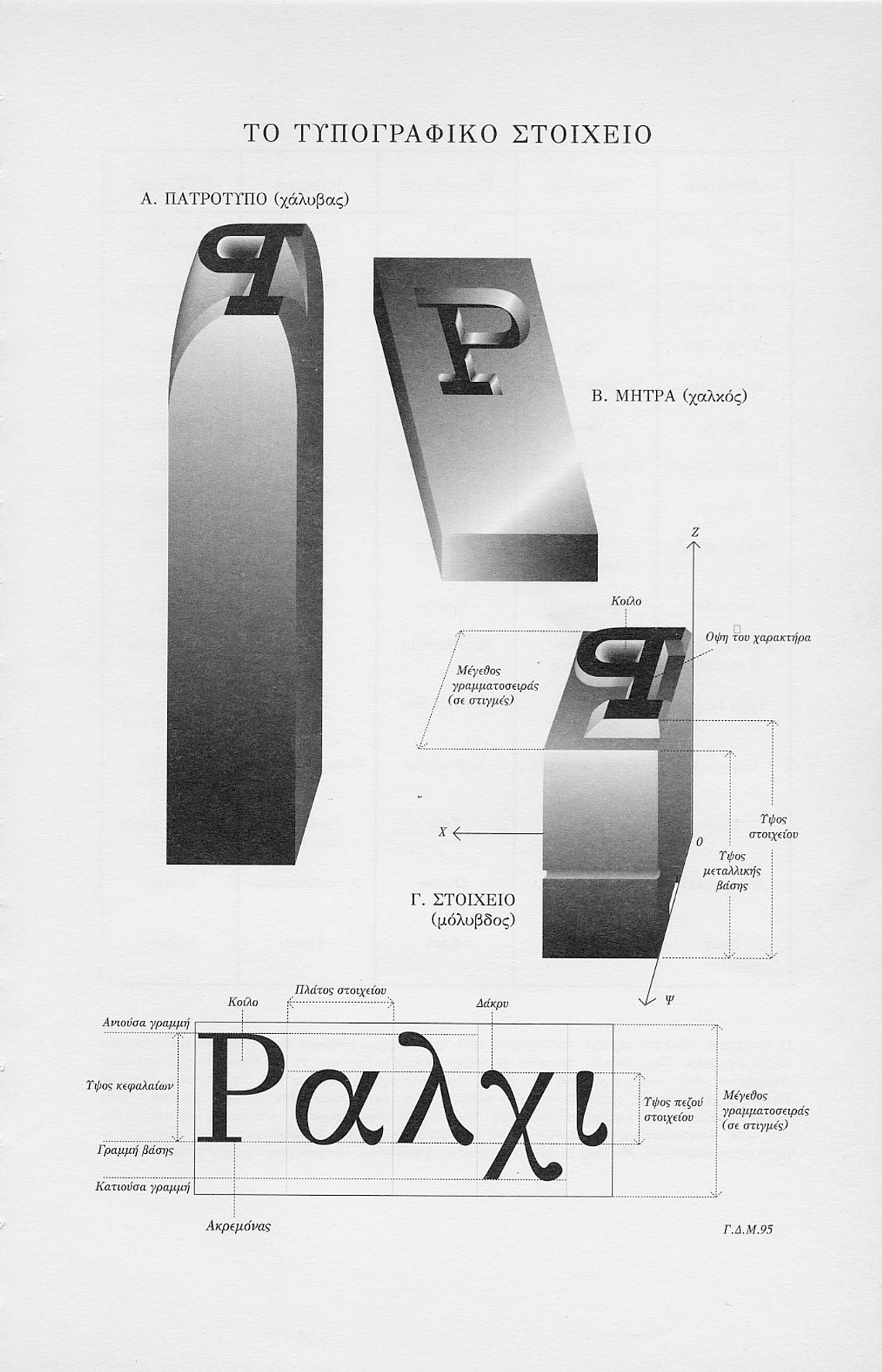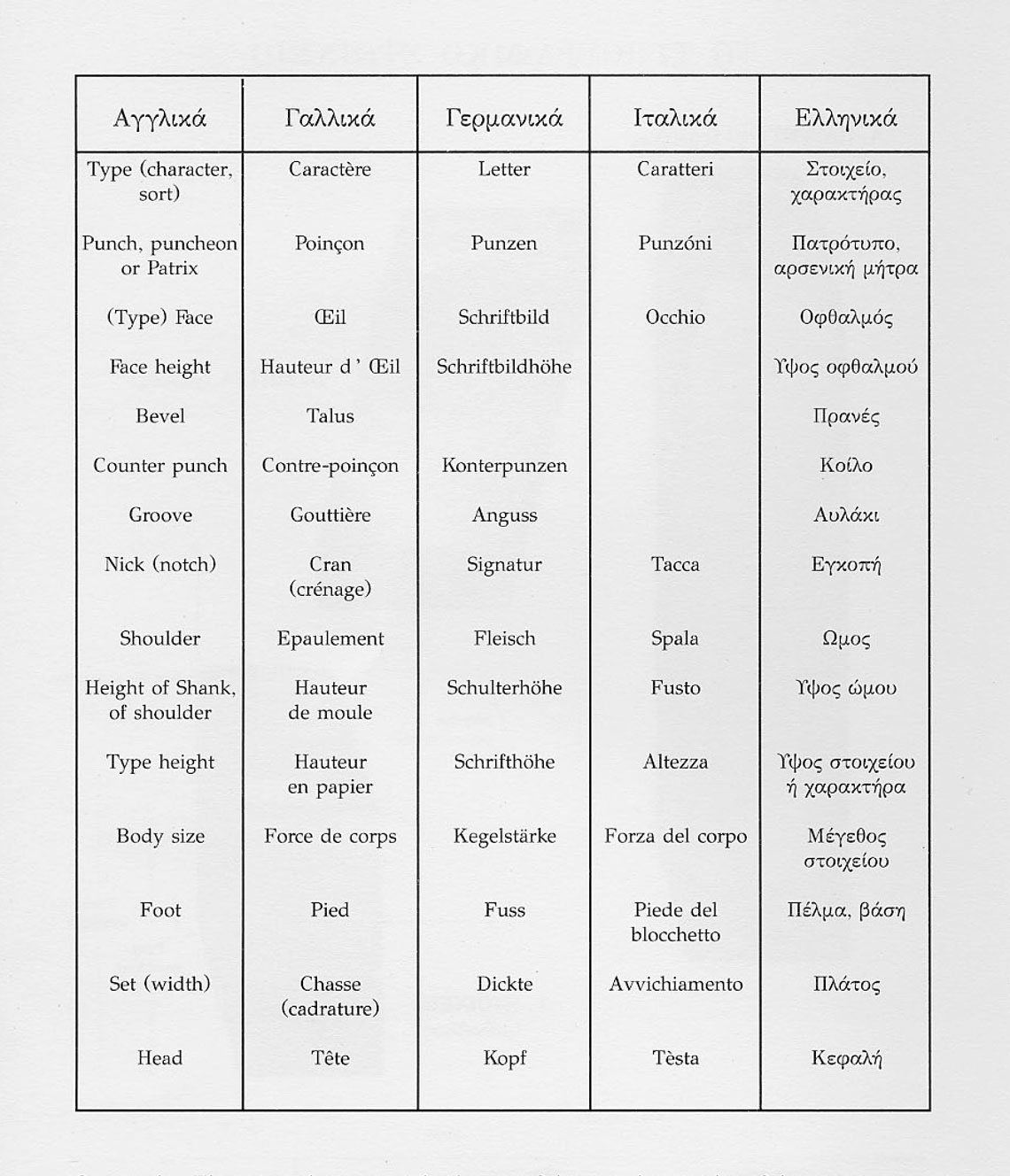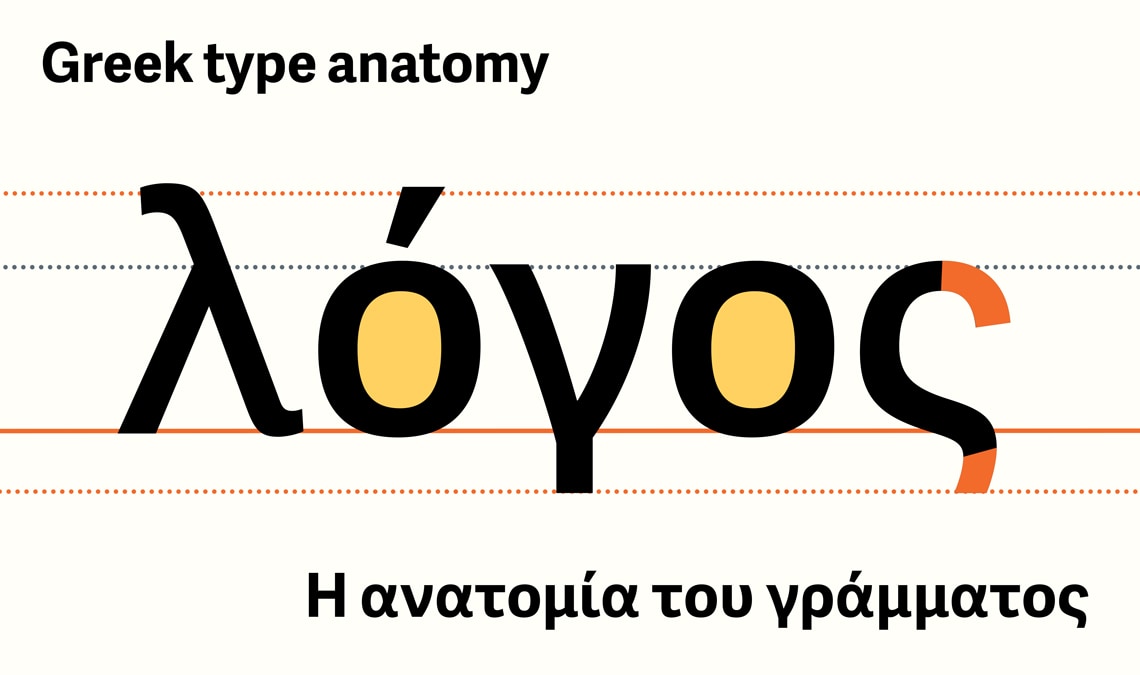
Greek Type Anatomy
This is our third text in a series of articles from our international team about type anatomy in different scripts. First we had Azza Alameddine’s insights on Arabic type anatomy, then Pooja Saxena offered her informed take on Devanagari script. It is now time for Irene Vlachou, our senior type designer, to give her insight on Greek font anatomy terminology.
By Irene Vlachou
In the Latin world there have been many endeavours to anatomize the shapes of letters, from Albrecht Dürer’s geometry of capitals in the 16th century to Stephen Coles’s excellent book, The Anatomy of Type, as recently as 2012.
While Greek uppercase, at least as far as fonts are concerned, can be analysed on the same basis as Latin, the lowercase has often been regarded as somewhat ‘exotic’. Thus Western type designers and scholars have shied away from anatomical terms in favour of labelling entire models after their creators without significant analysis of their construction and aesthetic relationships.
There are many professions that need terminology for everyday purposes. We can identify at least these: typeface designers, typographic designers, calligraphers, teachers of handwriting for children, design teachers, printers, graphic designers, palaeographers, etc. The difficulty has been getting all the modern groups to agree to use a standard set of terms. Almost all printing terms and glossaries of typographic terms in Greek nowadays have been established by non-Greeks, took place outside of Greece, and have been simply translated into Greek language.*
Glossary of Terms, Greek Letters: From Tablets to Pixels, Michael S. Macrakis (Oak Knoll Press, 1996).
In the 1990s there were two significant conferences about Greek typography: in 1992 the “DIDOT Program” in Thessaloniki, and in 1995 “Greek letters: from tablets to pixels” in Athens. In both conferences there were attempts to establish a typographic glossary in Greek. The latter gave us, in the appendix of the proceedings publication, a “glossary of terms” with the following note of caution:
“It must be borne in mind that typographic terms have been introduced and used by practitioners with little if any theoretical background. As a consequence the terms that have survived are often of unknown origin (as is ‘serif’, say) and if the origin is known the evolution of the term in use bears little resemblance to its root (as with ‘punch’). One might be tempted to introduce modern terminology that is consistent and accurate. However, the three dimensional character has been supplanted by the two dimensional pixelography. Many terms survive, however, and we list a few that are encountered in the text.”
Around 2006 there was a concerted effort to agree on terminology, especially on the internet forum Hegrade. A significant number of terms commonly used in English were presented alongside suggestions for Greek terms. The discussion petered out, with, for example, four terms for serif** — some everyday, some arcane — with no agreement as to which was to be recommended. This is the situation that remains today.
So I will list here the terms that seem to be in common use in graphic design schools, with the caution that these terms might never have been used by printers or calligraphers.
Greek type anatomy’s most common terms.
* The x-height has translated in Greek (in half of the examples) as the kappa-height. Of course that isn’t a very safe assumption if you see curved and overshooting kappas, but then again, ‘x’ can do that too.  :)
** We have ended up nominating six words for serifs: four from the Hegrade forum discussion in 2006 and two bonuses:
• serif = σέριφ (transliteration of the word “serif”)
• serif = πατούρα (patúra: flange, rabbet)
• serif = ακρεμόνας (akrémonas: tip of the branch)
• serif = ακρέμων (akrémon: tip of the branch, formal form of the above)
• serif = ακρότυπο (akrótipo: tip of the branch)
• serif = πέλμα (pélma: foot)
One more thing…
Greek is an alphabetic European script that, even if it is not written, always looks somewhat familiar especially in its typographic form. Nevertheless, to design it and typeset it correctly one needs to be familiar with its “peculiarity” compared to Latin. The Greek question mark is the Latin semicolon, the Greek semicolon is the Latin middle dot that is positioned a bit higher. The Greek lowercase always has accents and sometimes many accents and breath marks — if we set our text in Polytonic (not the official written system since 1982). But when written in capital letters, none of the accents and breath marks survive except for the dieresis. We prefer «French style quotes» and prefer our accents at the start of the sentence hanging. We even have our own ampersand, which is actually a conjunction of the word και (and), and it also has an uppercase form (there are two Unicode values). Then again, there is no keyboard layout to support it, so if you want to use it, then drag it or paste it from the character/glyph panel — if the font contains it. Even more bizarre is the Drachma symbol (Greek currency prior to the Euro) that never had a typographic form: the three consonants (δρχ) of the word were written before the number. If you are reminiscing those days when Greece had its own currency and you’d like to type it with style, our own Alverata has a few of them. :)
And lastly, what is needed: monotonic or polytonic Greek? In 2017 Google commissioned proposals for the standardisation of the Greek character set by defining the usage of Greek rather than simply following Unicode codepages. The sets have a specific structure and hierarchy:
General Use
• Core — Basic monotonic set for everyday modern Greek
• Plus — Basic polytonic set for scholarly Greek
• Expert — Small caps for Core and Plus sets, superscript letters
Scholarly Use